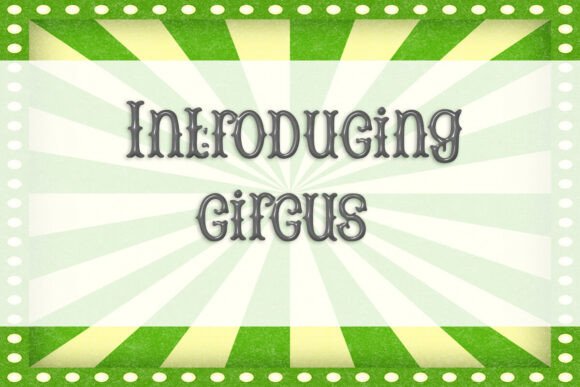
Unleash Your Creativity with the ‘Circus Tent’ Font
Are you a designer, crafter, or DIY enthusiast looking for a font that can add a touch of excitement and playfulness to your projects? Look no further than the ‘Circus Tent’ font! This versatile and eye-catching font is perfect for a wide range of creative applications, from designing t-shirts and stickers to crafting unique branding and magazine layouts.
What Makes ‘Circus Tent’ Font So Special?
The ‘Circus Tent’ font is a one-of-a-kind typeface that is sure to capture attention and spark imagination. Its bold, playful, and whimsical design makes it perfect for projects that require a touch of fun and excitement. Whether you’re creating a design for a kids’ party, a summer camp, or a product that requires a youthful and energetic vibe, this font is sure to deliver.
The ‘Circus Tent’ font is a dream come true for designers and crafters who are looking for a unique and versatile font to add to their arsenal. Here are just a few ways you can use this amazing font:
- T-Shirts and Apparel: Create eye-catching designs for t-shirts, hoodies, and other apparel that will make your customers stand out from the crowd.
- Stickers and Decals: Design imaginative stickers and decals that kids and adults will love.
- Branding and Packaging: Add a touch of personality to your branding and packaging with this unique font.
- Magazine Layouts: Create compelling magazine layouts that will engage and entertain your readers.
SVG Files and Cricut Projects
The ‘Circus Tent’ font is also perfectly suited for use with SVG files and Cricut projects. Whether you’re creating custom signs, decorations, or other DIY projects, this font will add an extra edge to your designs. With its bold and playful design, it’s sure to make your projects stand out.
Greeting Cards and Social Media Content
In addition to its many design applications, the ‘Circus Tent’ font is also perfect for creating personal and engaging greeting cards. Add a touch of personality to your cards and make them truly special. You can also use this font to create dynamic social media content that will engage and entertain your followers.
Endless Possibilities
The ‘Circus Tent’ font offers endless possibilities for designers, crafters, and DIY enthusiasts. Whether you’re working on a commercial project or a personal DIY project, this font is sure to inspire your creativity and bring your ideas to life. Here are just a few more ideas to get you started:
- Posters and Flyers: Create eye-catching posters and flyers that will grab attention and drive results.
- Signs and Banners: Design custom signs and banners that will make your business or event stand out.
- Digital Art: Use the ‘Circus Tent’ font to create stunning digital art pieces that will showcase your creativity and skill.
In conclusion, the ‘Circus Tent’ font is a versatile and exciting typeface that is perfect for designers, crafters, and DIY enthusiasts. With its bold, playful, and whimsical design, it’s sure to add a touch of fun and excitement to your projects. Whether you’re creating t-shirts, stickers, branding, or social media content, this font is sure to deliver. So why wait? Unleash your creativity with the ‘Circus Tent’ font and make your next design project stand out!